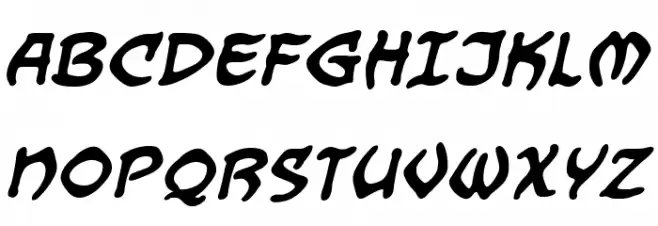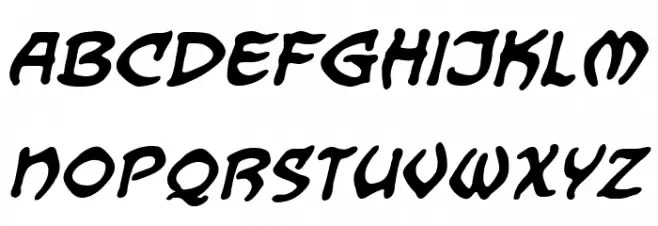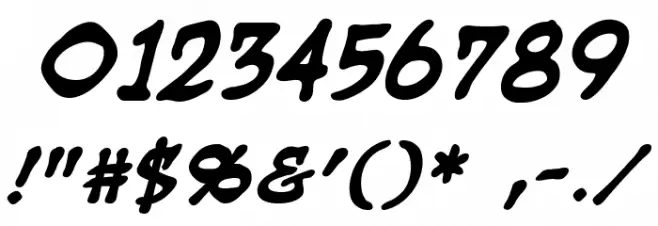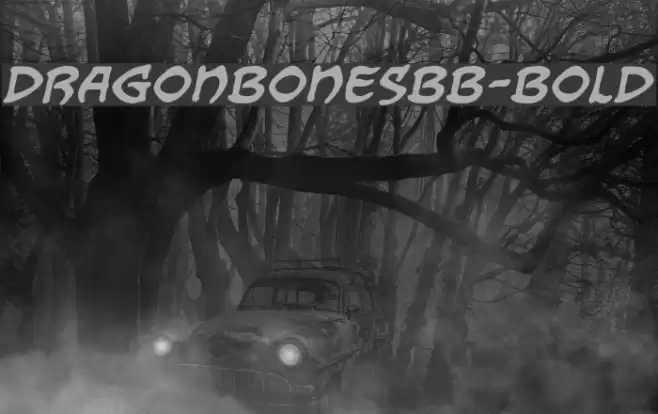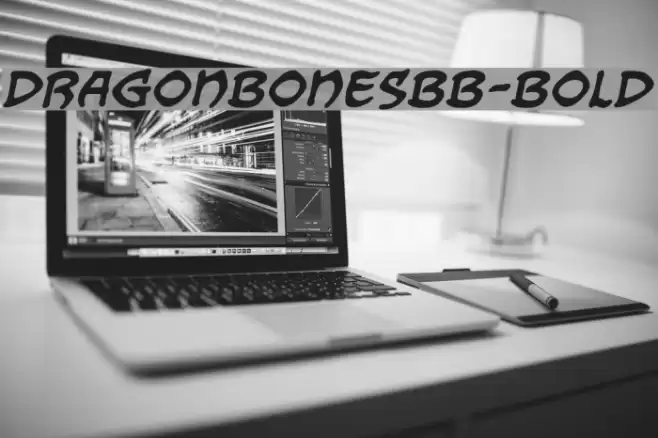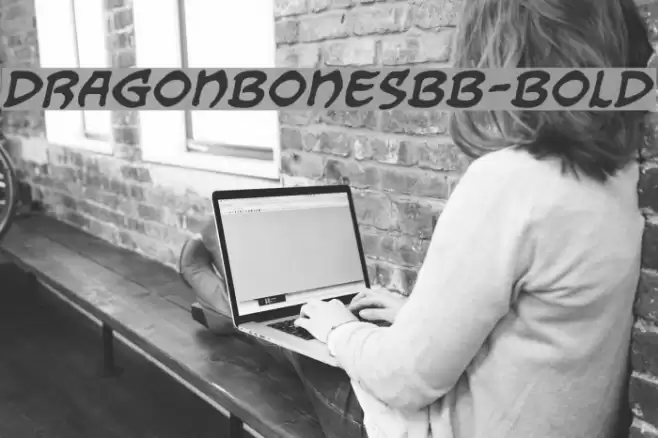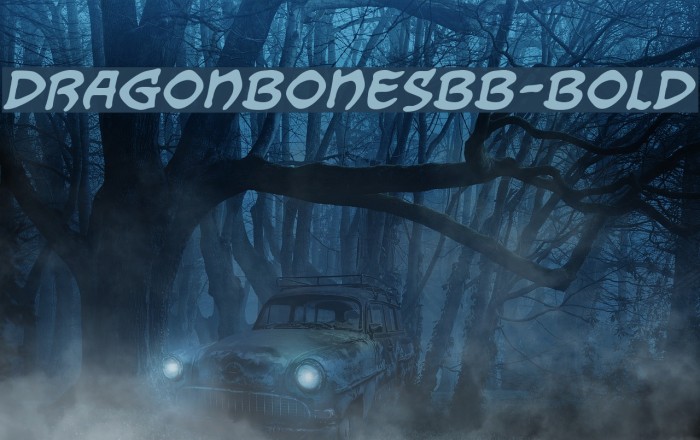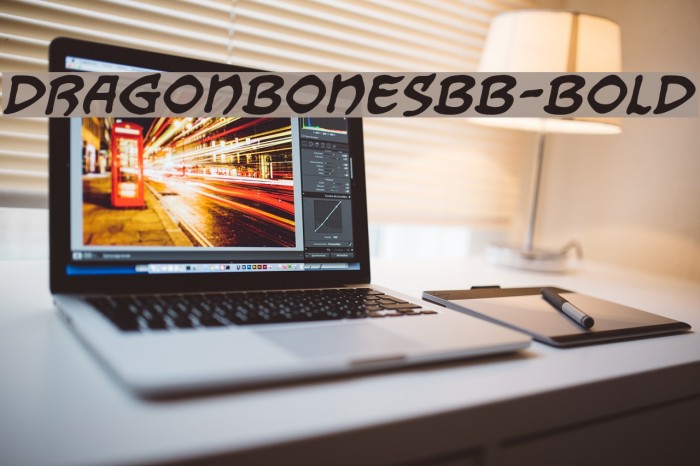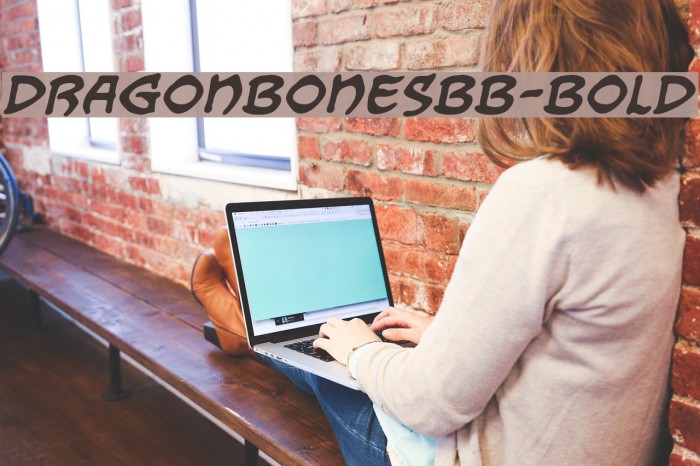
DragonbonesBB-Bold
This font features a bold and dynamic style with a playful, slightly whimsical appearance. The characters are designed with a brush-like texture, giving them a hand-drawn feel. The strokes are thick and rounded, contributing to a sense of movement and energy. The overall design is both eye-catching and unique, making it suitable for creative and informal applications. The uppercase and lowercase letters maintain a consistent style, while the numerals and special characters complement the overall aesthetic. The font's distinctive look is ideal for projects that require a touch of personality and flair.
A bold, brush-like font with a playful and dynamic style.
- Proposed Projects: Ideal for posters, comic book titles, children's book covers, and creative branding.
- Overall Style: Decorative
- Use Case: Headlines, Logos, Posters